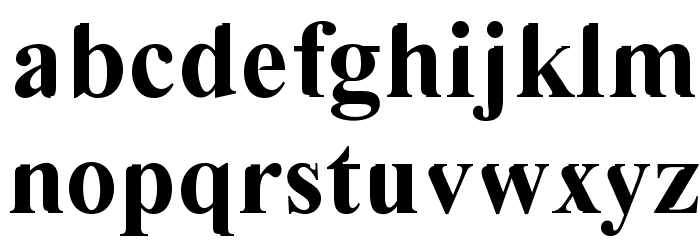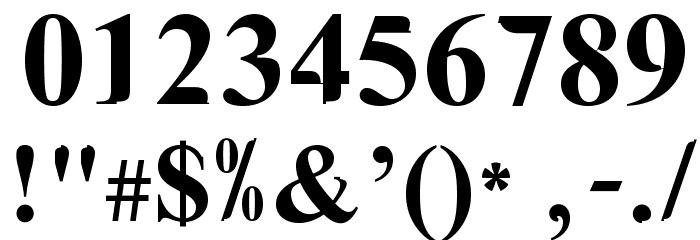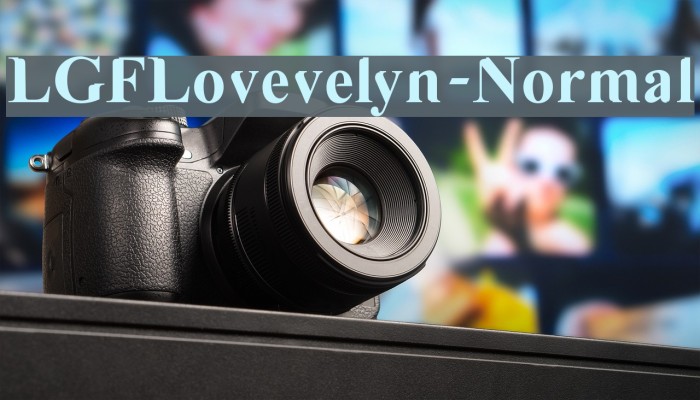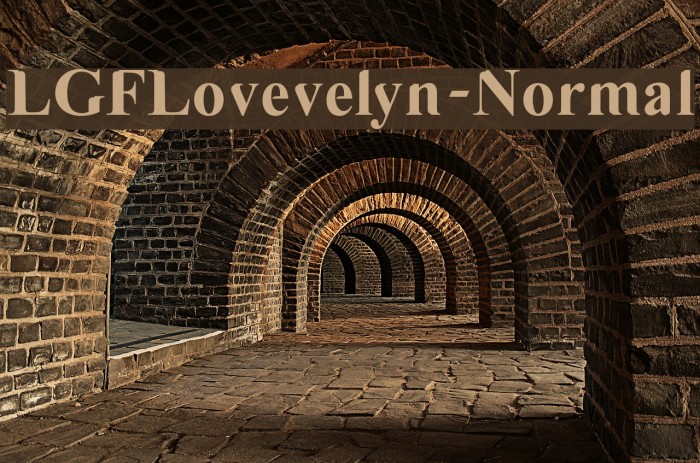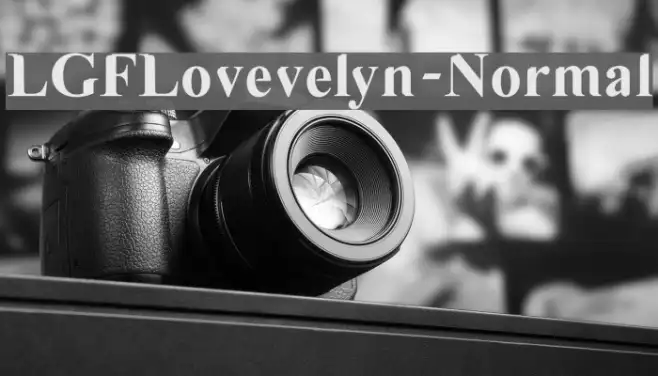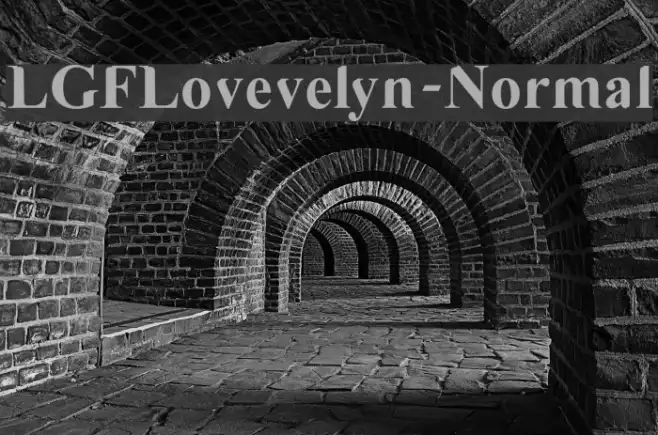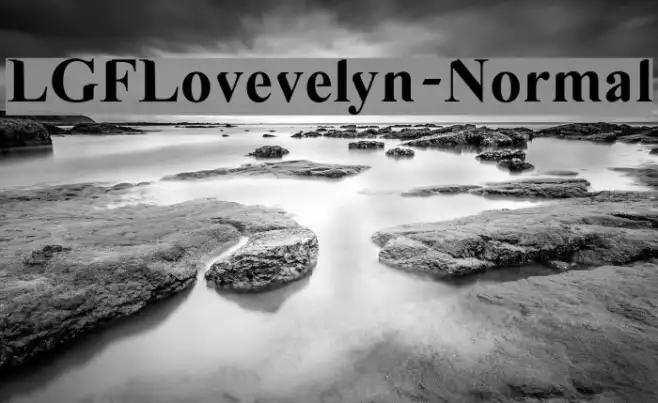
LGFLovevelyn-Normal Font
This font exhibits a classic serif style with elegant curves and a sophisticated presence. The uppercase letters are bold and commanding, while the lowercase letters maintain a refined balance. The numerals are clear and distinct, making them suitable for various applications. Special characters are well-designed, adding versatility to the font's use. The overall design is both timeless and modern, making it suitable for a wide range of projects.
A classic serif font with elegant curves and a sophisticated presence.
- Overall Style: Classic